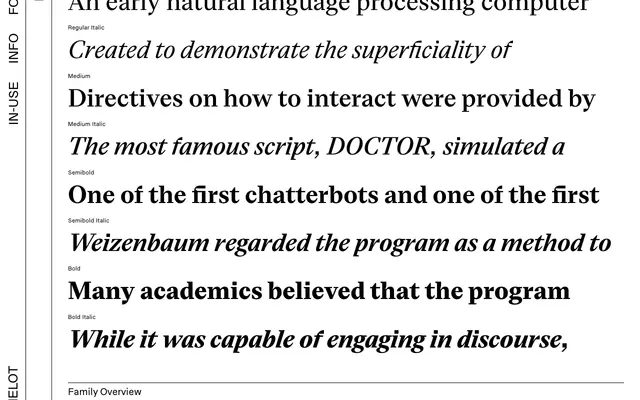
Eliza
Eliza specimen from Camelot
A transitional serif by Pawel Wolowitsch that introduces square, pixel-derived details into a humanistic construction, creating a tension between organic letterform tradition and digital rigidity.
Designed by Pawel Wolowitsch at Camelot, Eliza grafts square pixel-like terminals and serifs onto a humanistic serif framework, framing the contrast as an allegory for human and machine. The family runs four weights from Regular to Bold, each with a matching italic, and is accompanied by a monospace sibling. Stylistic sets allow certain letters to shift toward even more geometric forms, giving designers control over how far the digital quality asserts itself.
Described explicitly as a conceptual exploration of transitional typefaces, with humanistic serif construction modified by square, pixel-like details that introduce a digital rigidity to the letterforms.